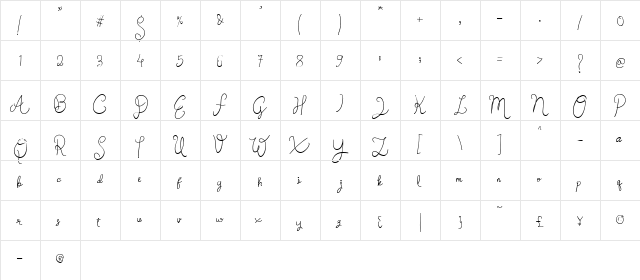
Signature Street Regular
| Foundry | Muse-Master |
| Designer | Dasagani Ramesh Goud |
Design Context for Signature Street Typeface
Signature Street takes a measured approach to typography — its balanced proportions and neutral character make it a reliable workhorse for both digital and print work.